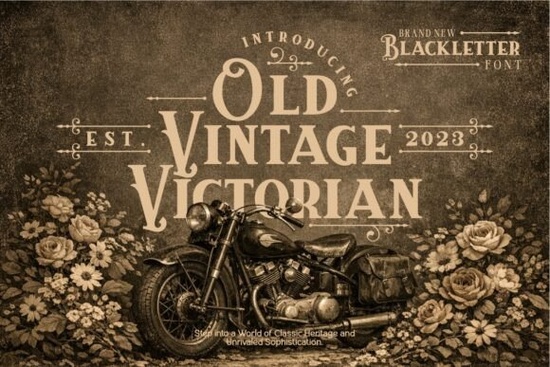
Looking for a typeface that brings Victorian-era charm to your creative projects? The Old Vintage Victorian Font is a detailed, ornamental typeface inspired by 19th-century design traditions. It features decorative letterforms with flourishes and serif details that work beautifully on invitations, labels, posters, and branding materials. Whether you sell print-on-demand products or design for clients, this font adds a refined, historic look without feeling outdated.
What Makes Victorian-Style Fonts So Popular?
Victorian fonts draw from the typography and decorative arts of the 1800s an era known for elaborate details, ornate borders, and handcrafted elegance. Designers still reach for these styles today because they instantly communicate heritage, quality, and sophistication.
You'll see Victorian-inspired lettering on:
- Wedding and event invitations especially vintage, rustic, or formal themes
- Product packaging for artisan goods, whiskey labels, and apothecary brands
- Signage and wall art with a classic or steampunk aesthetic
- Book covers for historical fiction, gothic romance, or mystery genres
- Branding and logos for businesses that want a heritage feel
What makes a font like Old Vintage Victorian Font stand out is the level of detail in each character. The curves, serifs, and decorative strokes are carefully designed to feel authentic rather than generic.
Where Can You Use This Font?
This typeface is versatile enough for both print and digital work. Here are some practical ways designers and small business owners are using Victorian-style fonts right now:
Print-on-Demand Products
If you sell on Etsy, Redbubble, or Merch by Amazon, a font like this pairs well with vintage-themed designs. Think T-shirts with retro quotes, antique-style mugs, or rustic tote bags. Victorian typography gives those products a handcrafted, premium feel that buyers notice.
Invitations and Stationery
Wedding invitations, dinner party cards, and formal event stationery all benefit from the ornamental quality of this font. It works especially well when combined with muted color palettes, textured backgrounds, and decorative borders.
Branding and Logo Design
For businesses in craft brewing, barbering, boutique retail, or artisan food, a Victorian font helps communicate tradition and craftsmanship. It tells customers you care about quality and detail before they even try your product.
Digital Projects and Social Media
Victorian fonts also work well in digital formats. Use them for YouTube thumbnails, Instagram graphics, blog headers, or website accents when you want to evoke a vintage mood.
Tips for Working with Ornamental Fonts
Decorative fonts like this one require a bit more care than standard body fonts. Here are some things to keep in mind:
- Use it for headlines and display text only. Ornamental fonts are hard to read at small sizes or in long paragraphs. Pair them with a clean sans-serif or serif for body copy.
- Give the letters room to breathe. Add extra letter spacing and line height so the decorative details don't feel cramped.
- Choose your color palette carefully. Deep, muted tones burgundy, navy, forest green, gold complement Victorian typography well.
- Test at different sizes. Make sure the font looks good at the actual size you'll use it, whether that's a business card or a large-format poster.
How Does This Font Compare to Other Victorian Typefaces?
There are many Victorian fonts available, but not all are created equal. Some are too simplified and lose the intricate details that define the style. Others are so ornate they become impractical for real design work.
The Old Vintage Victorian Font strikes a good balance. It has enough decorative detail to feel genuinely Victorian, but it remains legible and usable across different project types. It's a solid choice if you want something that looks polished and historically informed without requiring hours of manual adjustments.